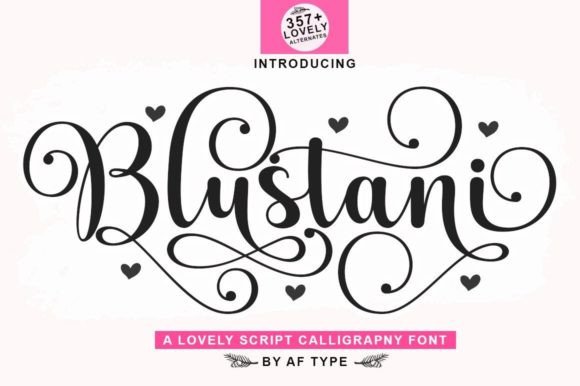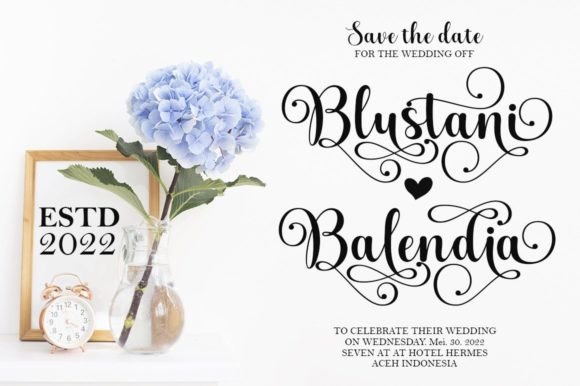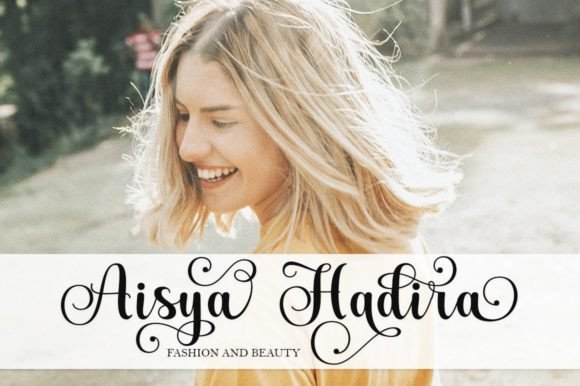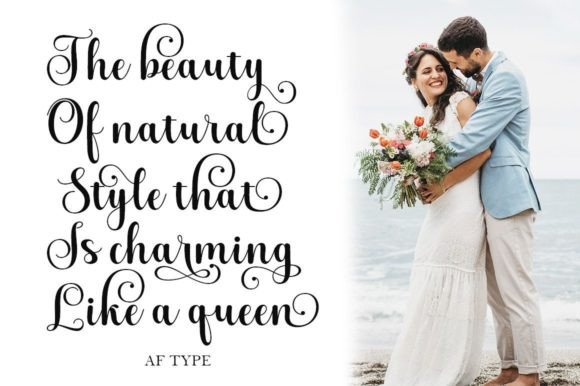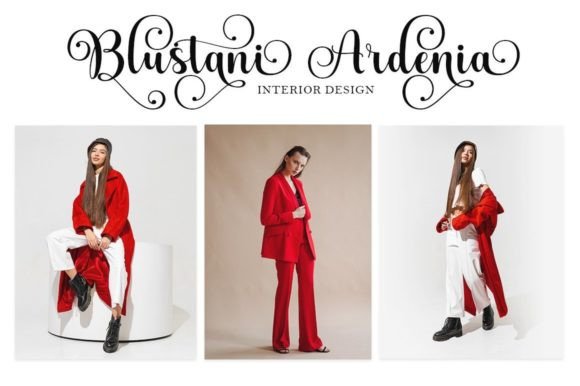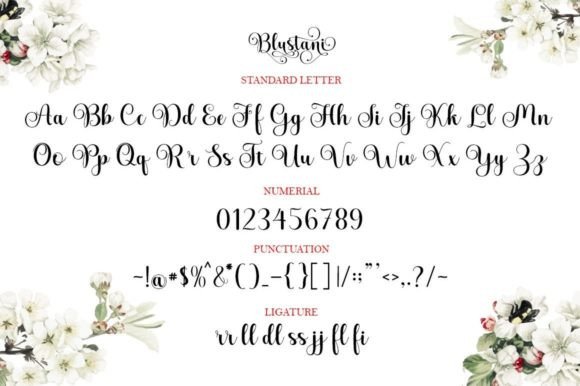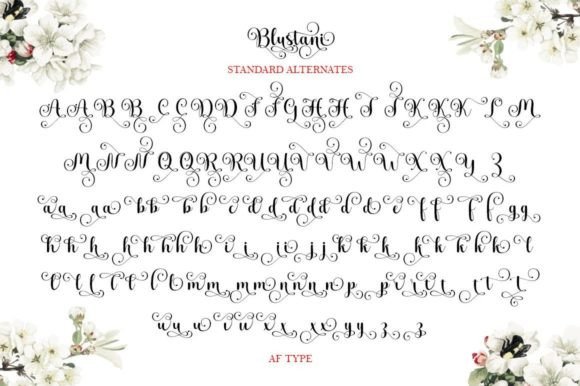
Blustani Font
About Blustani Font
Blustani is not just a font; it’s a luxurious and elegant typeface that adds a touch of sophistication to your favorite projects. This handwritten font is crafted with meticulous attention to detail, creating a distinct and timeless style that sets it apart. Let’s delve into the features that make Blustani the perfect choice for creating spectacular designs.
At its core, Blustani exudes luxury. The font’s elegant touch is immediately apparent, making it ideal for projects that demand a refined and upscale aesthetic. Each letter is carefully crafted to embody a sense of opulence, adding a touch of sophistication to your designs.
The distinct style of Blustani ensures that it stands out. In a world of fonts, Blustani’s uniqueness captures attention and makes a lasting impression. Whether used for branding, logos, invitations, or any creative project, Blustani brings a level of exclusivity that elevates the overall visual appeal.
Blustani’s timeless style is a key feature. Trends may come and go, but the enduring beauty of Blustani remains constant. This makes the font a reliable choice for projects that aim for a classic and enduring appeal. Whether you’re designing for a high-end brand or creating elegant invitations, Blustani ensures a timeless and sophisticated look.
The font’s versatility allows it to adapt to various design contexts. From logos to product packaging, Blustani seamlessly integrates into different projects, providing a touch of luxury that enhances the overall design. Its flexibility makes it a valuable asset for a wide range of creative endeavors.
Blustani’s elegant touch is perfect for expressing your creativity in a grand and luxurious manner. Its distinct and timeless style makes it a font of choice for those who seek to infuse their designs with sophistication and opulence.
In conclusion, Blustani is more than just a font; it’s a design statement that brings luxury and elegance to your projects. Its distinct and timeless style ensures that your designs stand out, leaving a lasting impression of sophistication. Fall in love with the opulent charm of Blustani as you embark on creating spectacular and refined designs.